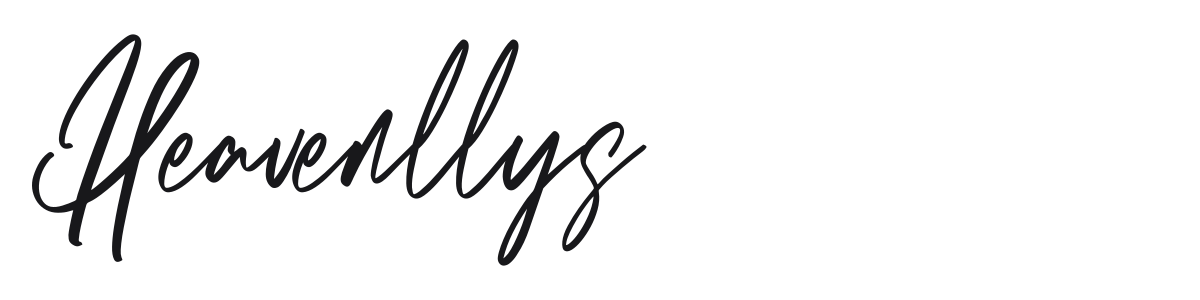
Heavenllys
Heavenllys is a contemporary casual script with the loose, energetic feel of handwritten calligraphy done with a brush pen. Thick downstrokes and thin hairline connections create natural ink-like contrast, while looping ascenders and expressive swashes keep things lively. It works well for wedding stationery, brand logos, and any project that needs a personal, handcrafted touch.